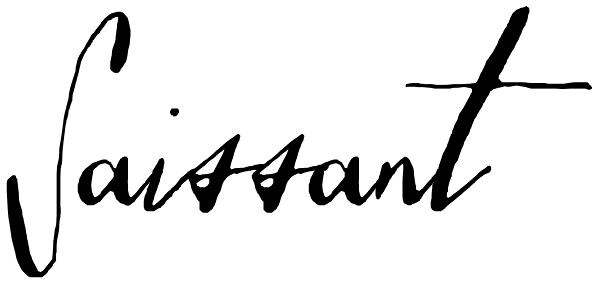
Saissant
Edgy and modern, Saissant is a hand-drawn font that leaves an impression. Bold capitals and kinetic lowercase letters have been designed for emotional impact. Saissant includes multi-language support as well as contextual alternates and...